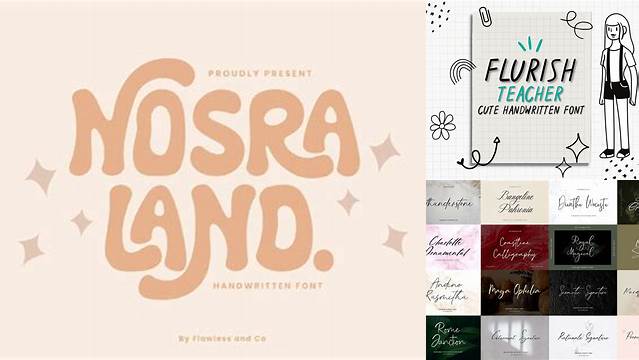
Free Procreate Handwriting Fonts: Your Ultimate Guide
Hey guys! Ready to dive into the awesome world of digital art with Procreate? If you're anything like me, you love adding that personal touch, that unique flair that screams 'this is mine!' And what better way to do that than with some fantastic free Procreate fonts handwriting? I'm talking about those beautiful, flowing scripts that can transform your artwork from good to absolutely stunning. This article is your ultimate guide to finding, installing, and rocking those handwriting fonts in Procreate. We'll explore where to find the best freebies, how to get them working seamlessly in your app, and even some creative ideas on how to use them to level up your digital art game. So, grab your Apple Pencil, fire up Procreate, and let's get started on this exciting journey! Get ready to personalize your artwork and make it truly stand out from the crowd. Let's make some magic happen, shall we?
Discovering the Best Free Handwriting Fonts for Procreate
Finding the right fonts is like finding the perfect brush; it can completely change the feel and look of your artwork. So, where do you start your search for free Procreate fonts handwriting? The good news is, there's a treasure trove of amazing resources out there, offering a diverse range of styles from elegant scripts to quirky doodles. Websites like DaFont and Font Squirrel are goldmines. They offer a huge library of free fonts, many of which are perfect for replicating the look of natural handwriting. Just be sure to check the license before you download. Most of the free fonts are available for personal use, but if you plan on using them in commercial projects, make sure the license allows it. Another great resource is Creative Fabrica, which often offers free font bundles and individual freebies. Platforms like Behance and Dribbble are also worth a look. Many designers share their font creations or links to free downloads. Sometimes, you might stumble upon a font directly from an individual designer's website. The best way to find the perfect handwriting fonts is to explore and experiment. Browse through different websites, download fonts that catch your eye, and try them out in Procreate. Remember to organize your fonts into different folders for easy access. You can also search for fonts by style, such as calligraphy fonts, brush script fonts, or even signature fonts. This will help you narrow down your search and find fonts that suit your specific artistic style. It's a fun process, and the more fonts you discover, the more creative options you'll have. The possibilities are endless, and you'll discover fonts you never knew existed. Always make sure you are downloading fonts from reputable sources to avoid any security risks. Happy font hunting, my friends!